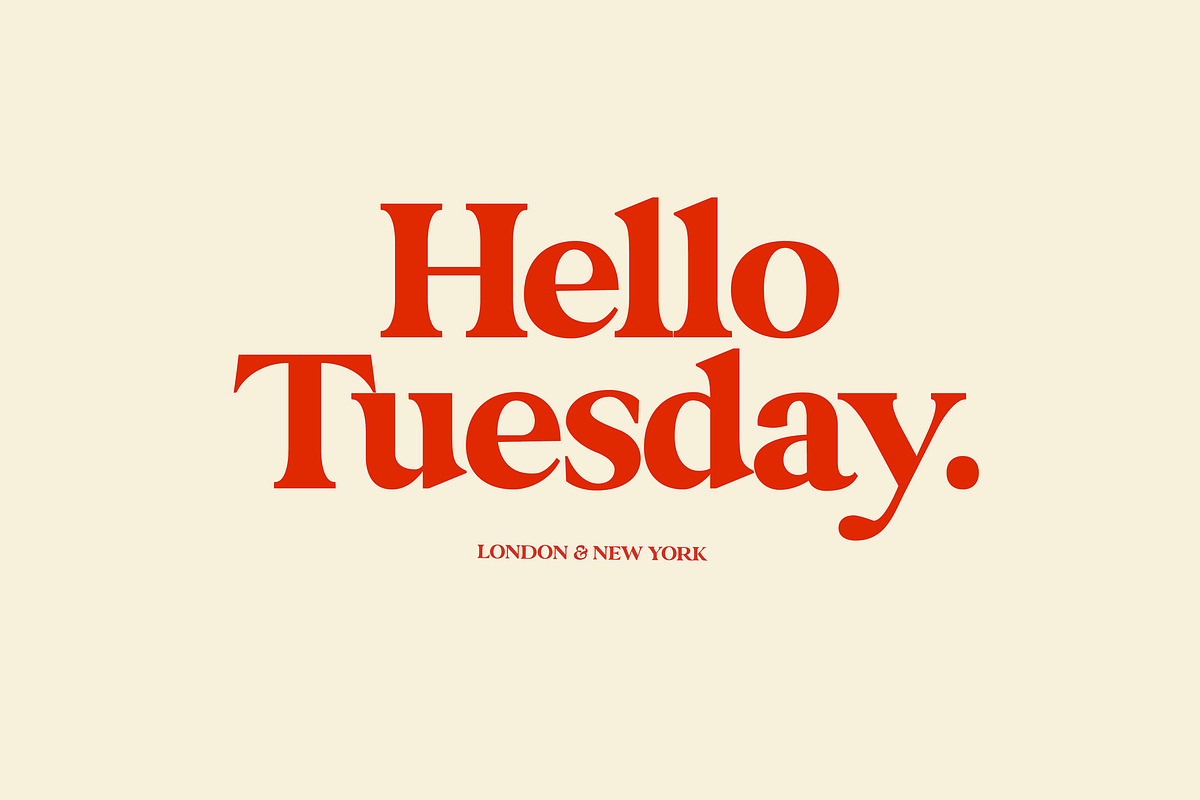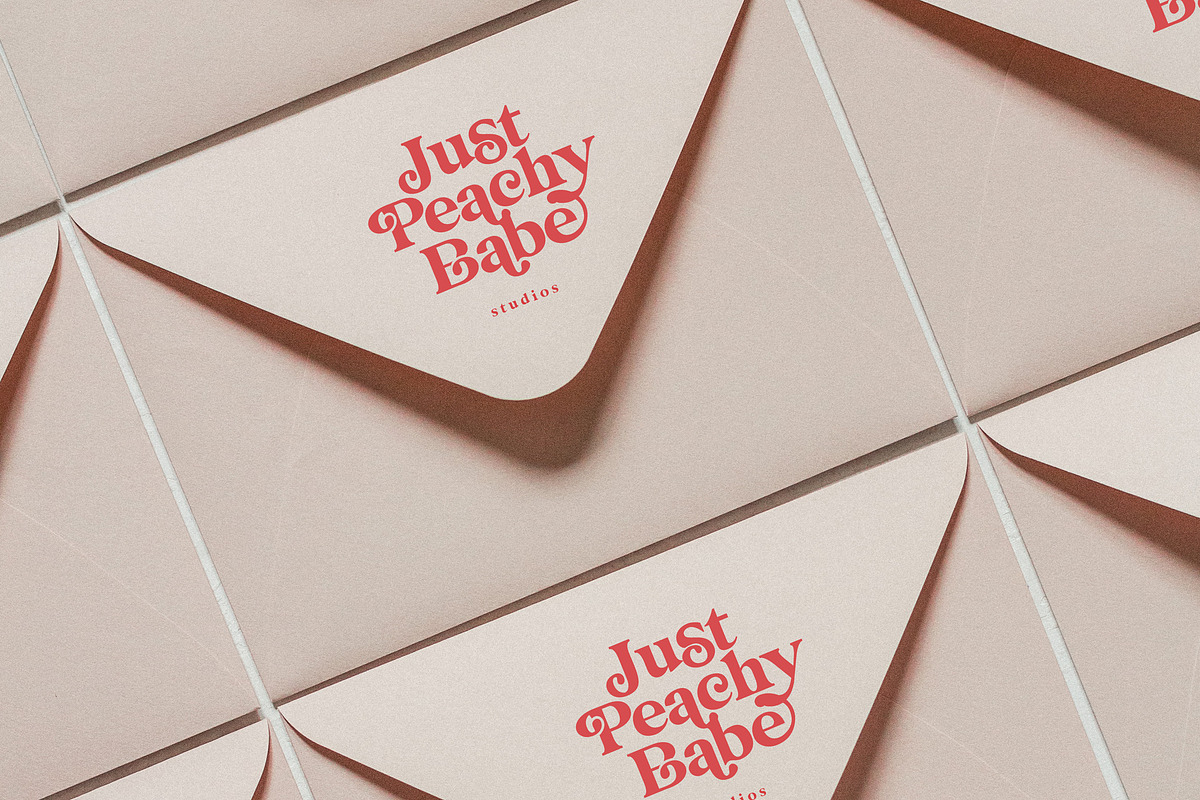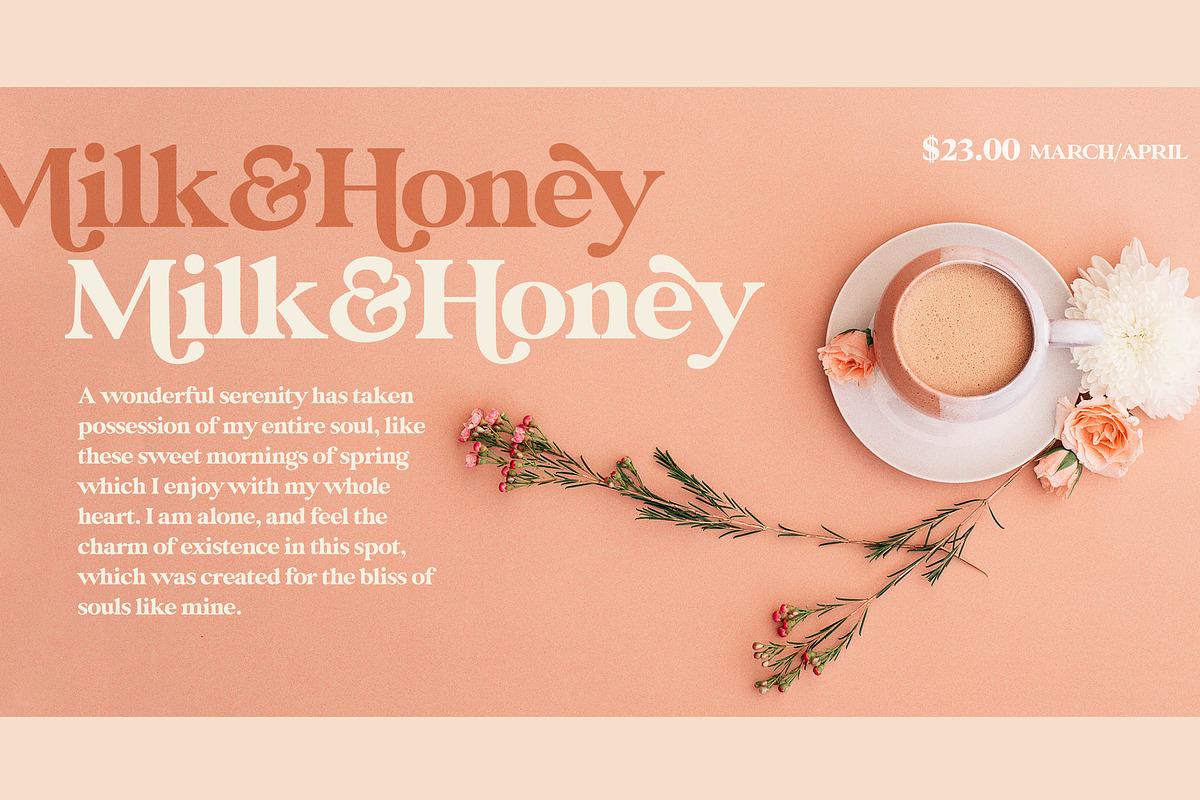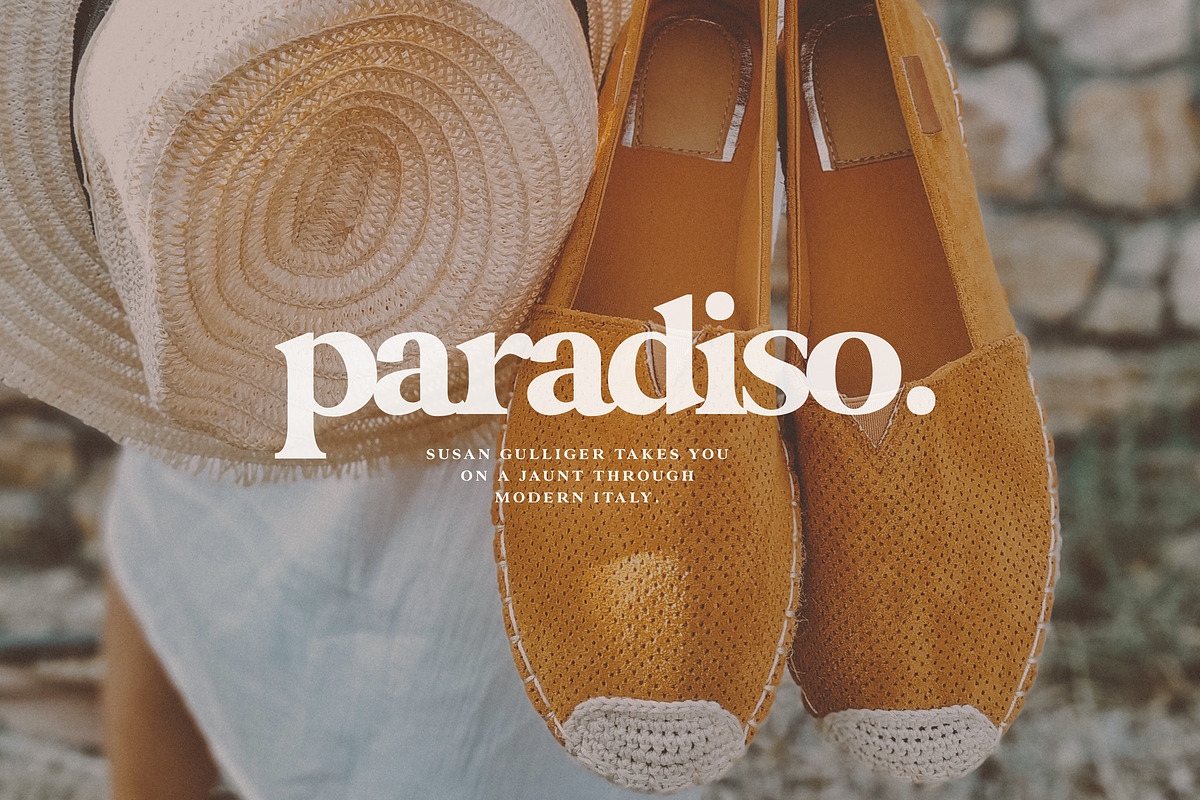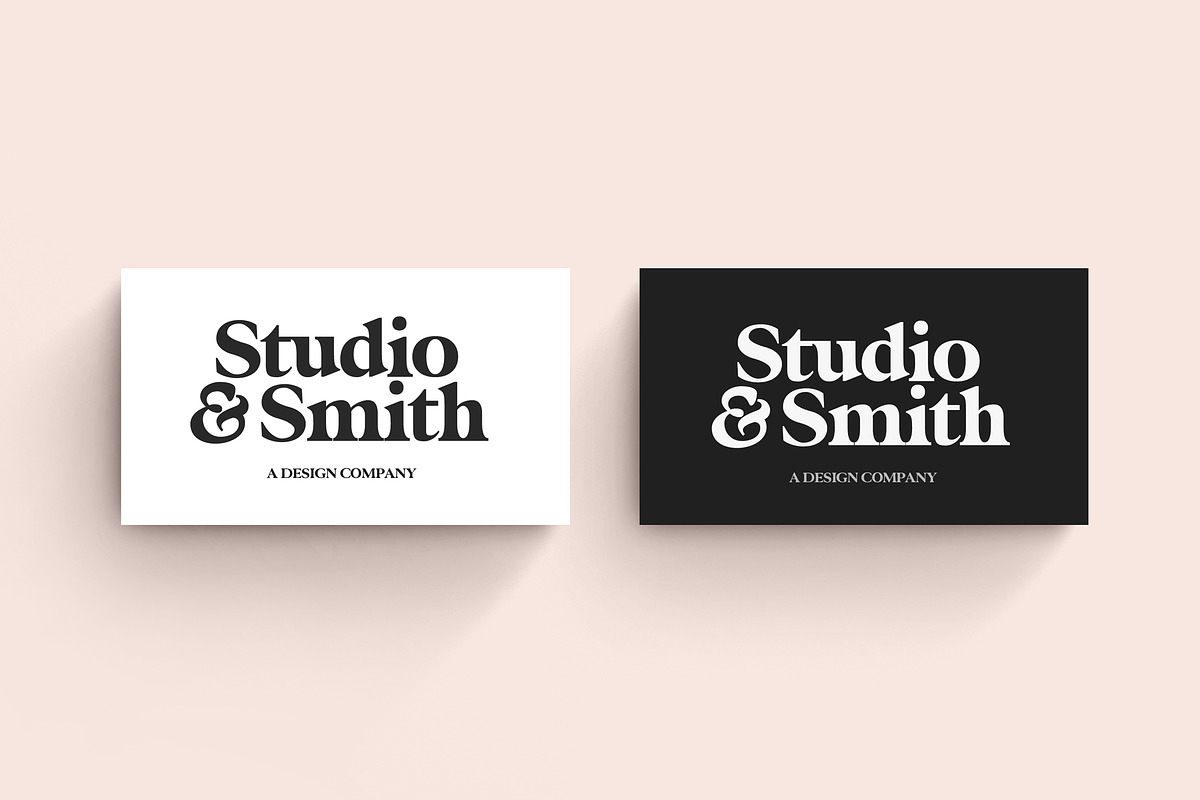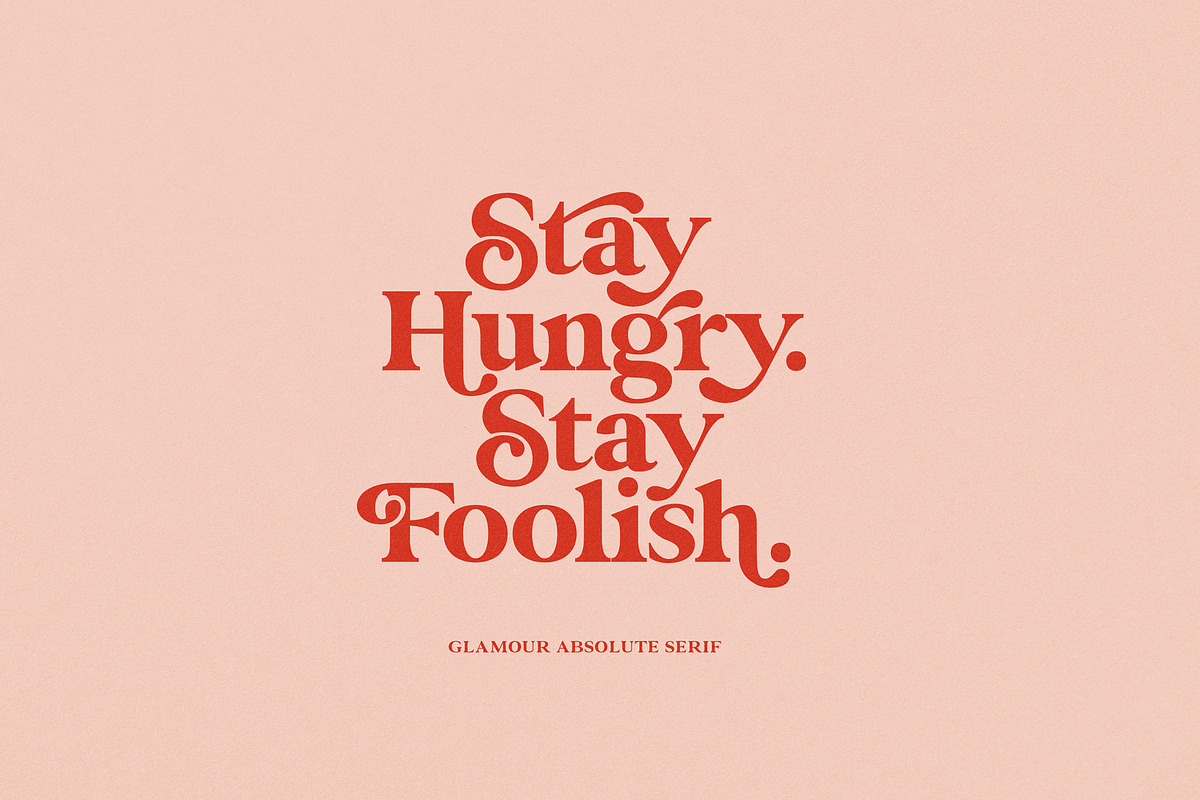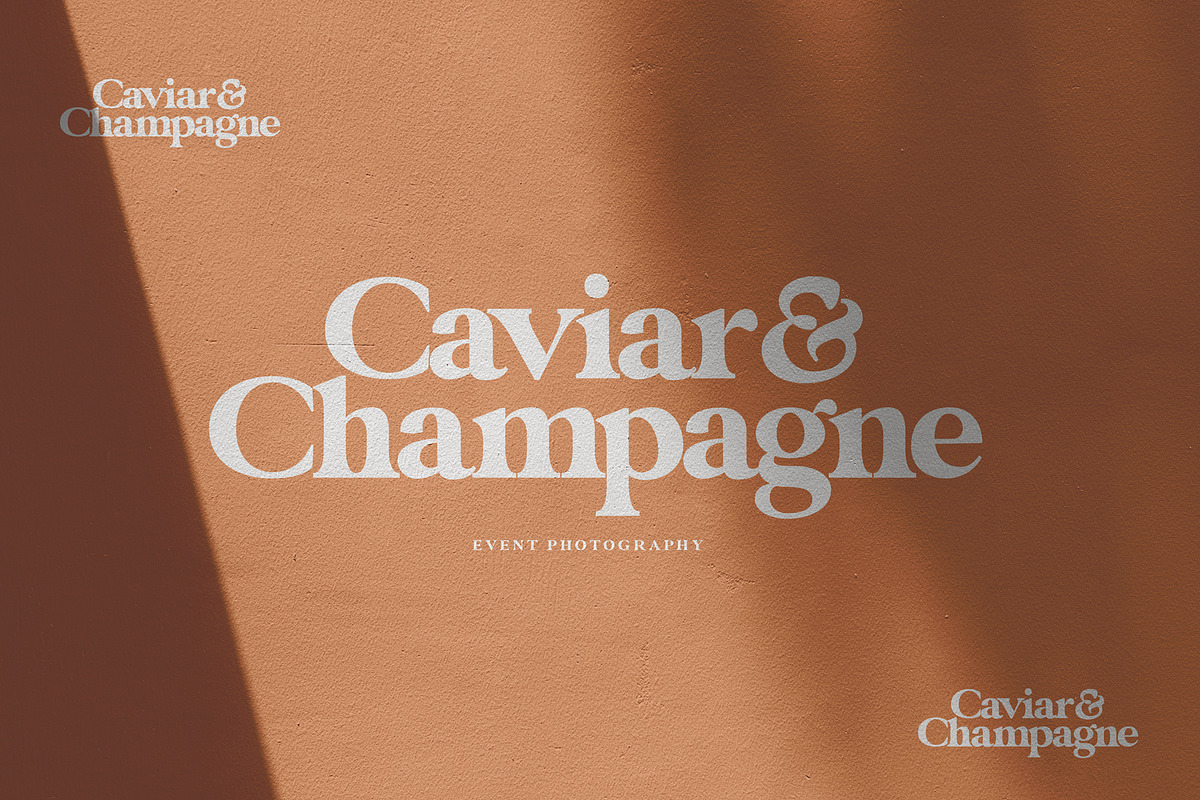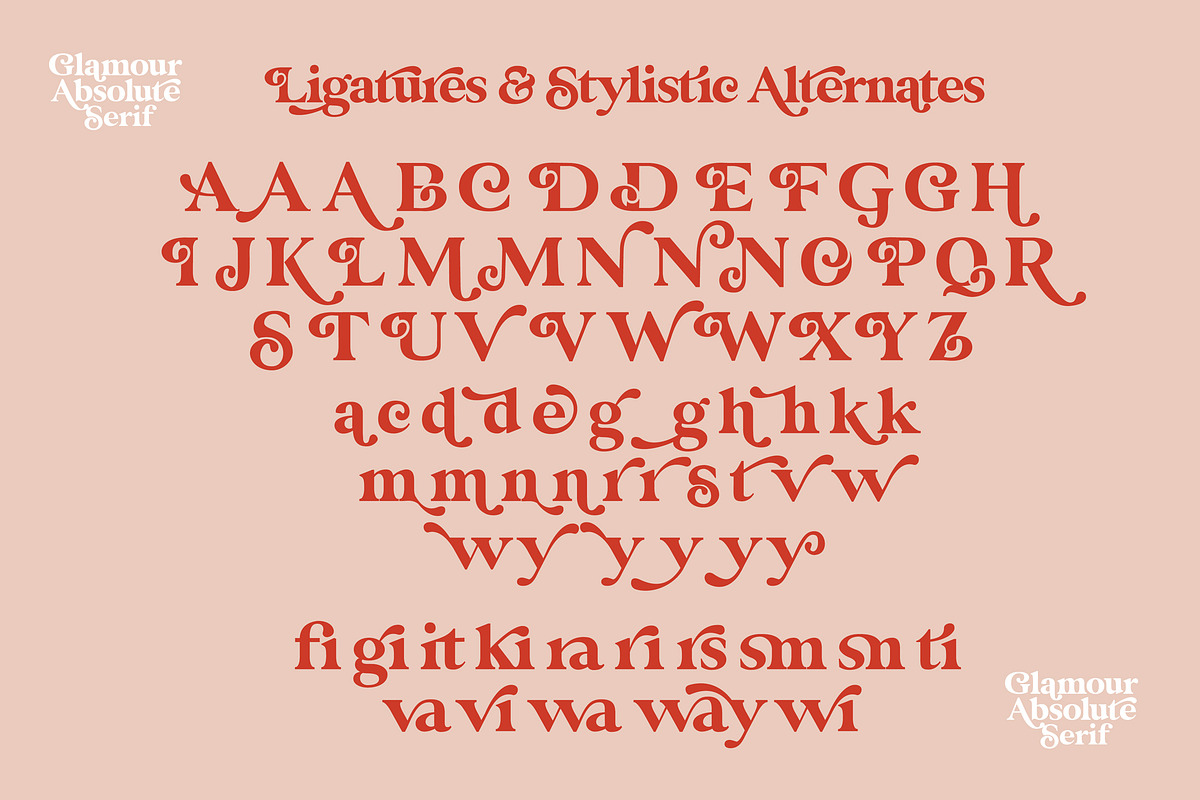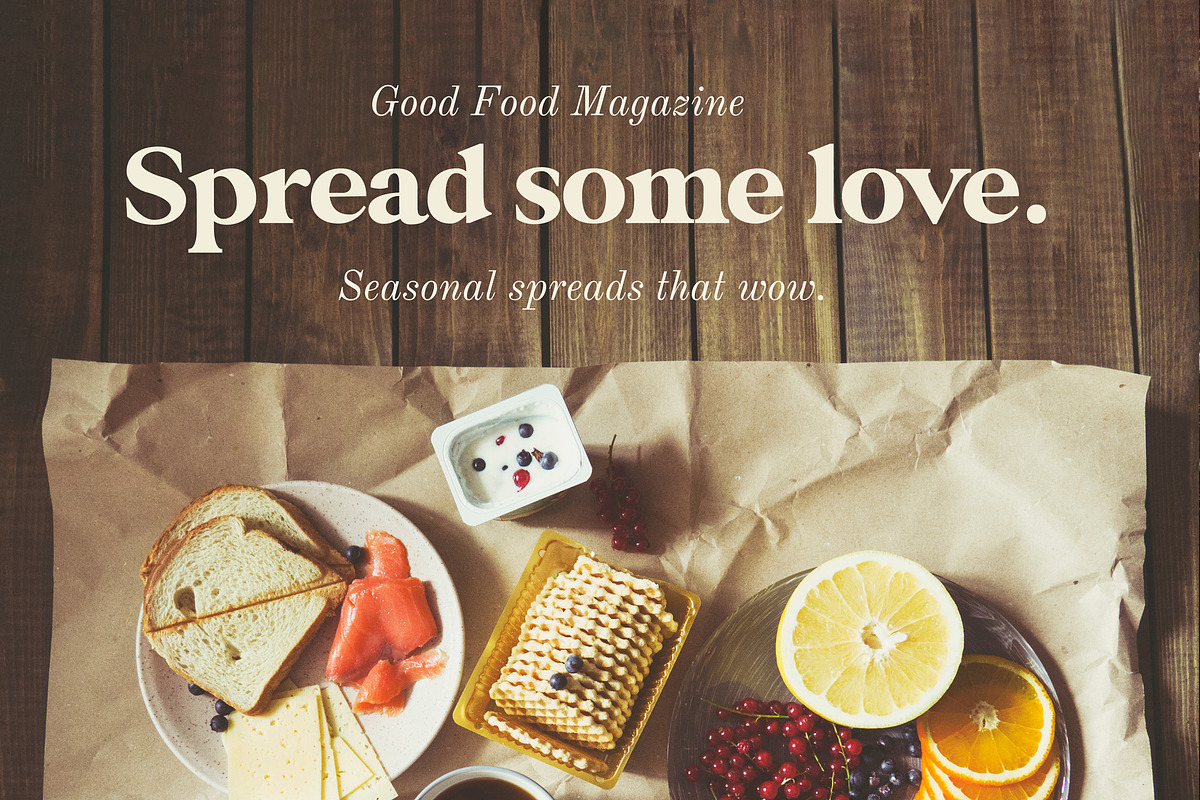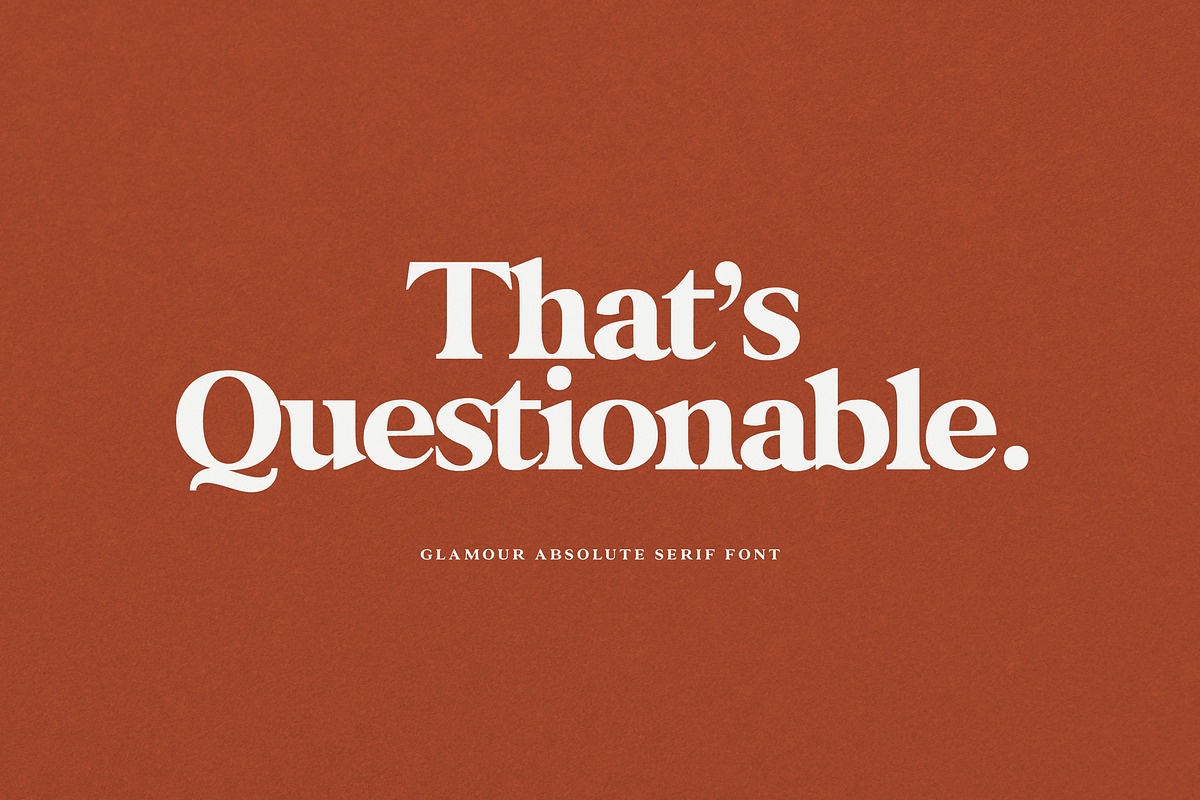
Glamour Absolute Modern/Vintage Font
Introducing "Glamour Absolute" - A brand new "two-faced" bold serif with both modern and vintage curves.
A Two-faced beauty : Modern or Vintage
If you are going Vintage Retro : Access your OpenType features to access the large selection of alternate letters and ligatures, select the letters you like from the large variety to get the vintage look you are after. Vary between a light and heavy vintage look based on how many letters you alter.
If you are going Modern Chic : Just type with regular letters :) Play with your letter spacing to add even more class to your designs.
Due to its split personality , Glamour Absolute is a very versatile font, covering a wide range project types, from bold magazine imagery , to wedding invitations, to branding, poster design and so much more.